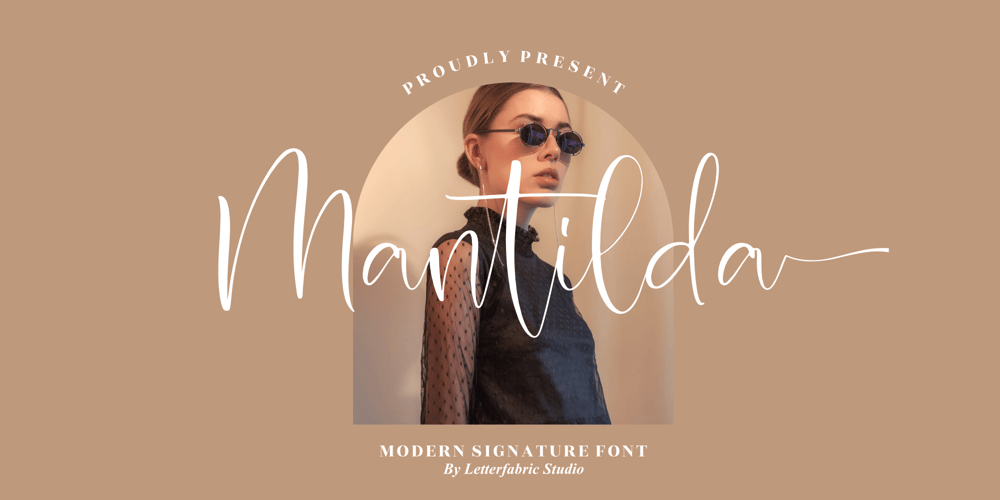
Mantilda Font Family was designed by Heru Utama Putra and published by Letterena Studios. Mantilda contains 2 styles and family package options. Mantilda is a stylish, refined script font that emanates sophistication and elegance. Its stylish alternates and ligatures make this font the perfect match for any project.Mantilda is PUA encoded which means you can access all glyphs and swashes with ease!